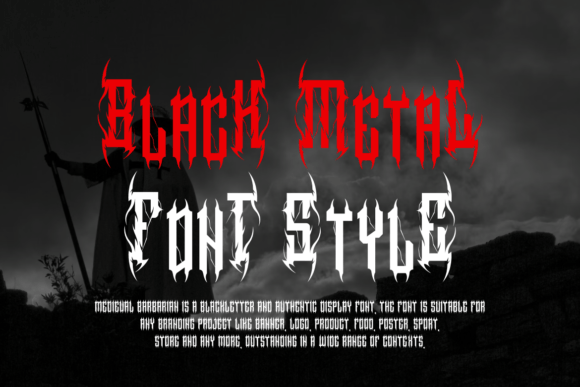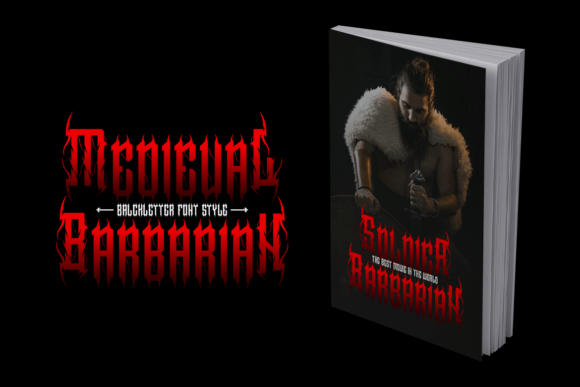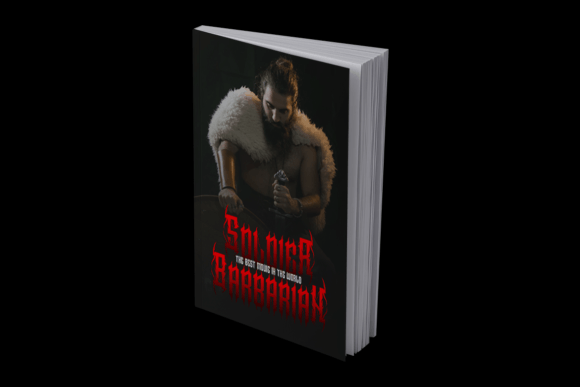
Introduction to Medieval Barbarian Font
Medieval Barbarian is a cool blackletter font that channels the raw energy and historical allure of medieval craftsmanship.
With intricate, Gothic-inspired letterforms and a bold presence, it transports your designs into a realm of timeless sophistication Ideal for projects seeking a classic and powerful aesthetic, Medieval Barbarian exudes an aura of ancient grandeur.
Key Features of Medieval Barbarian Font